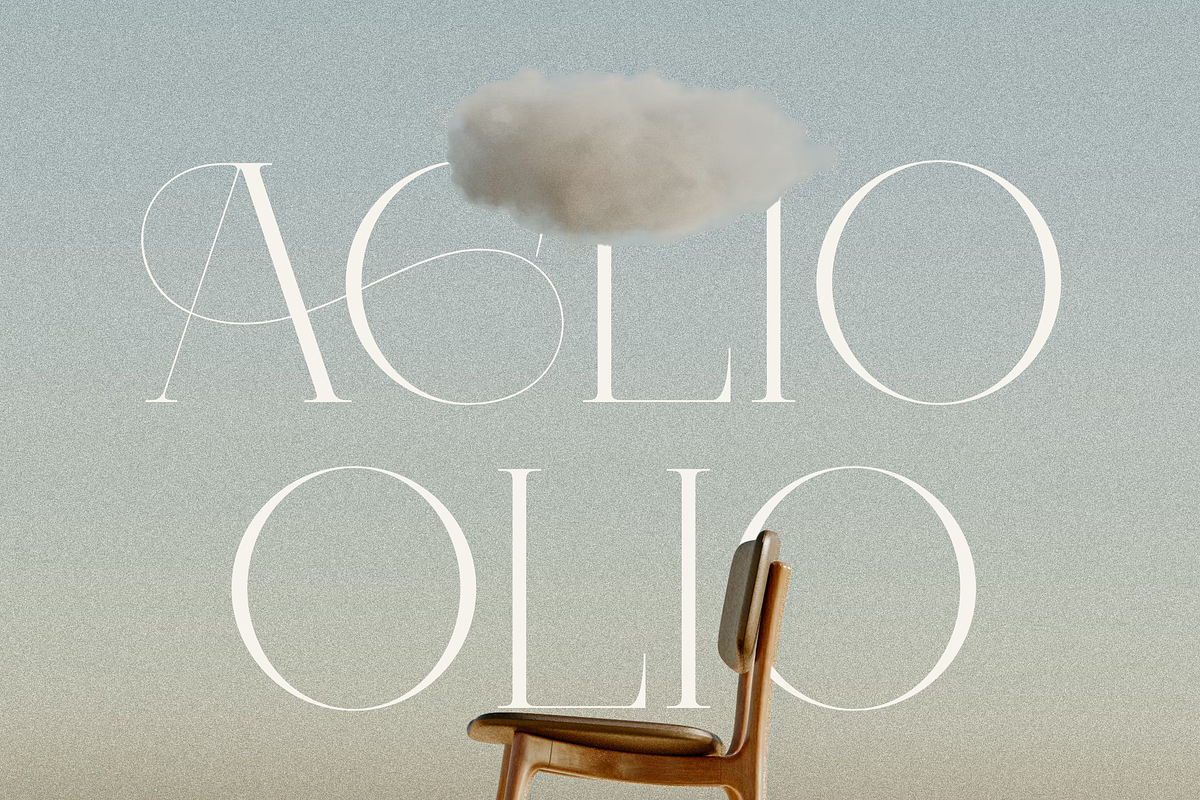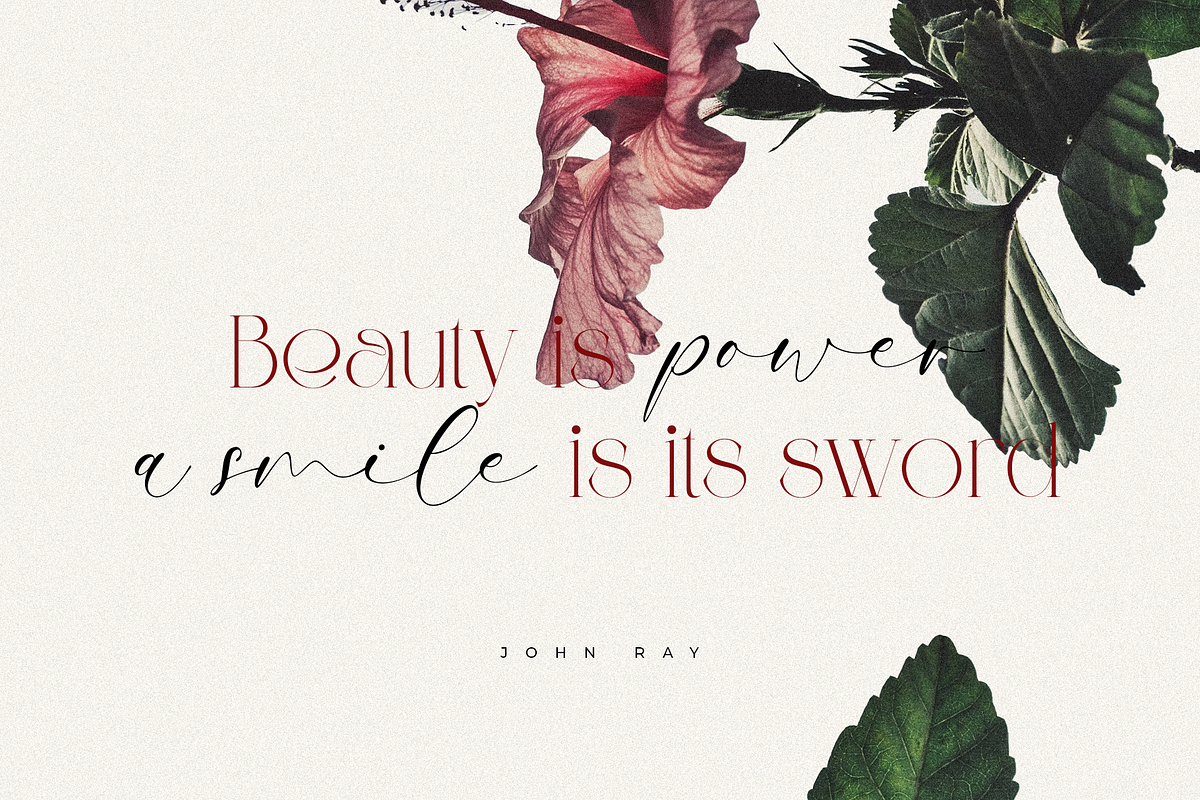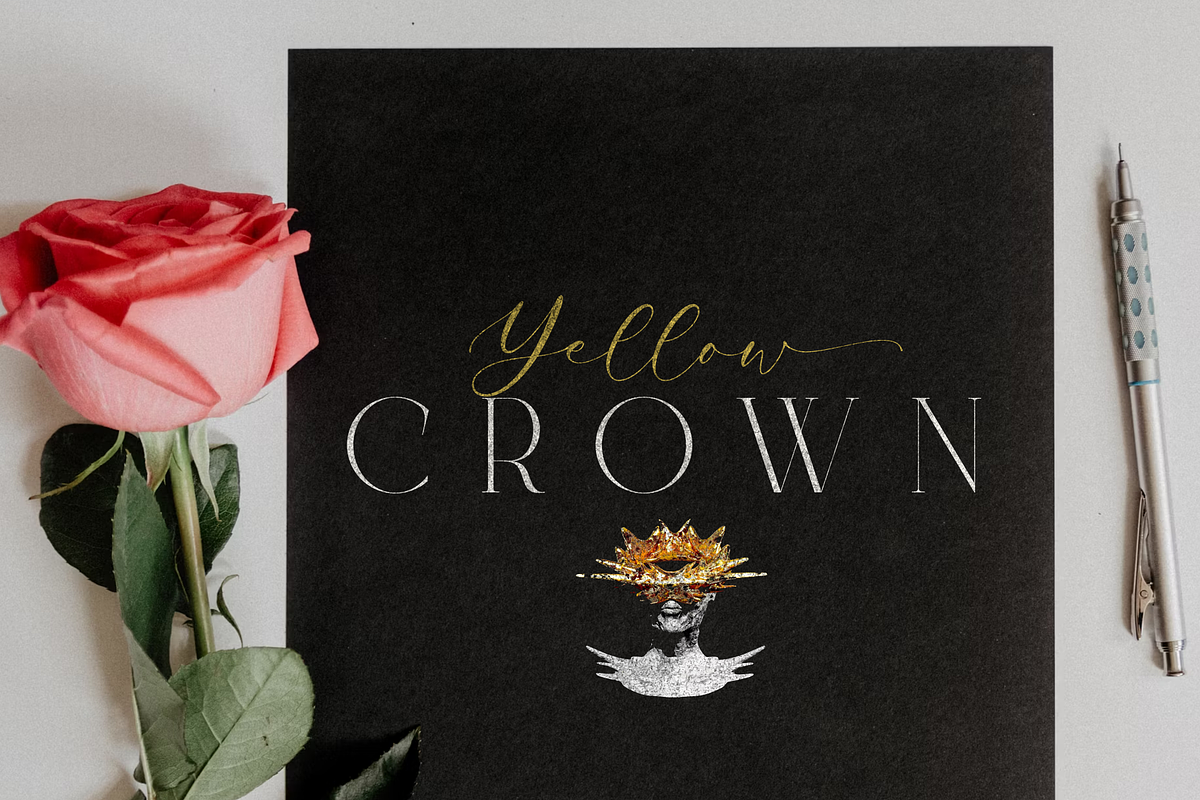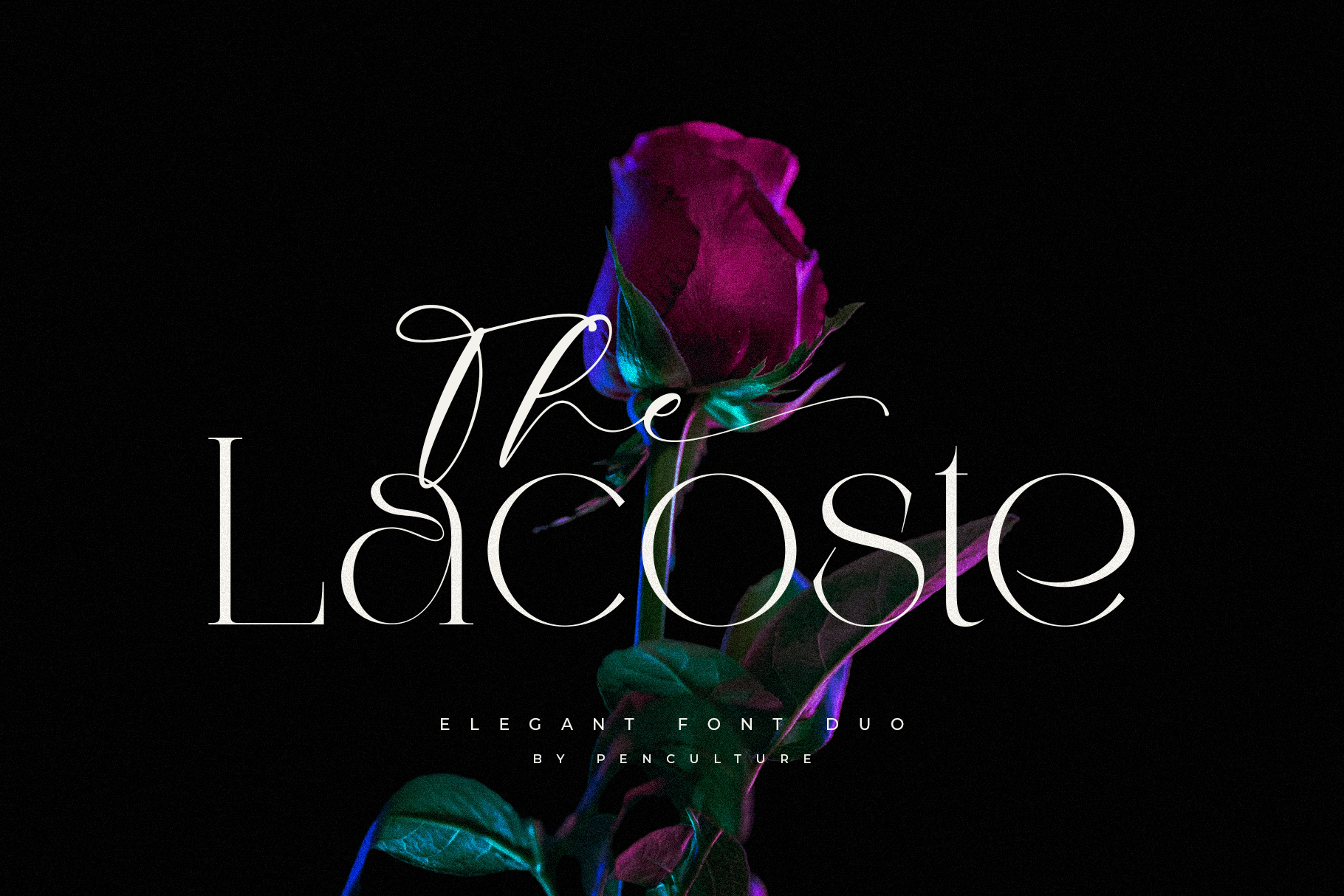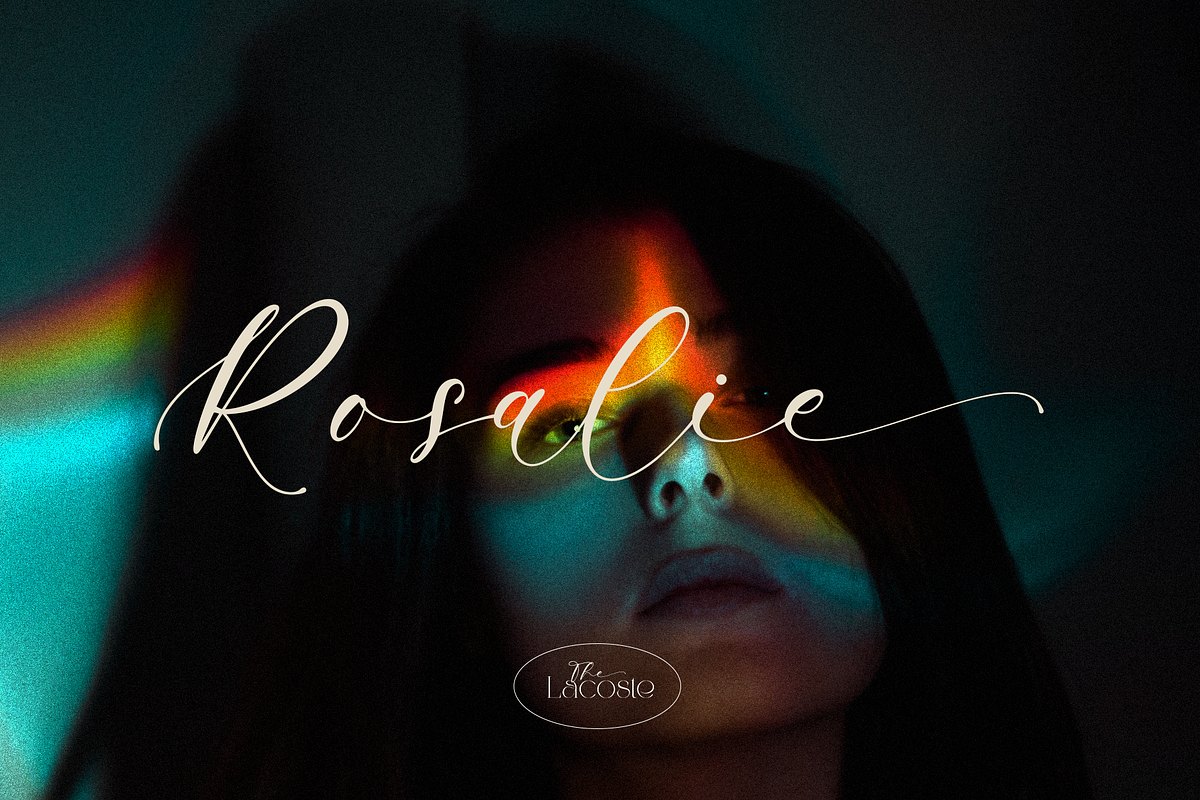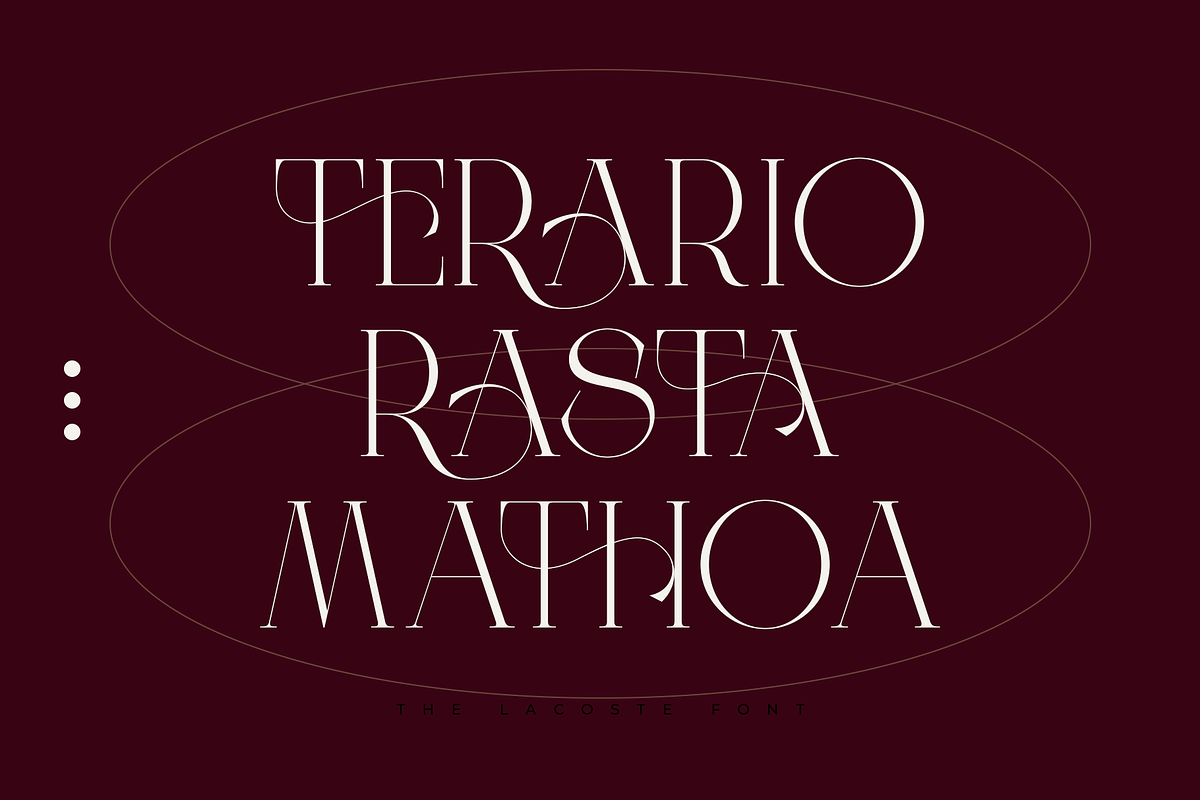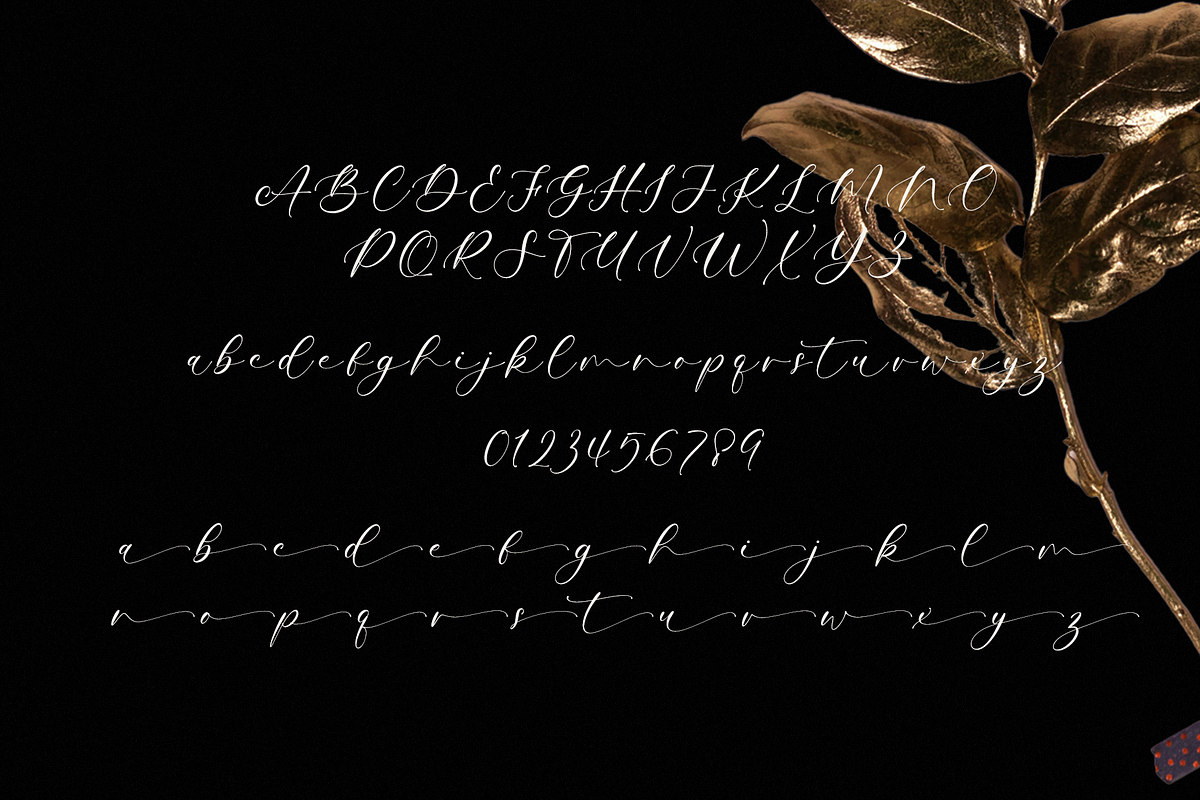
The Lacoste Font Duo
Lacoste is a stylish font duo that combines the fluid elegance of a script font with the timeless sophistication of a serif typeface. Both fonts feature outstanding stylistic alternates and ligatures, allowing you to create unique, polished designs with ease.
Whether you’re designing logos, branding, packaging, or editorial layouts, Lacoste offers versatility and character, making it perfect for a wide range of creative projects. With its seamless pairing of script and serif, this font duo brings sophistication and flair to every design.